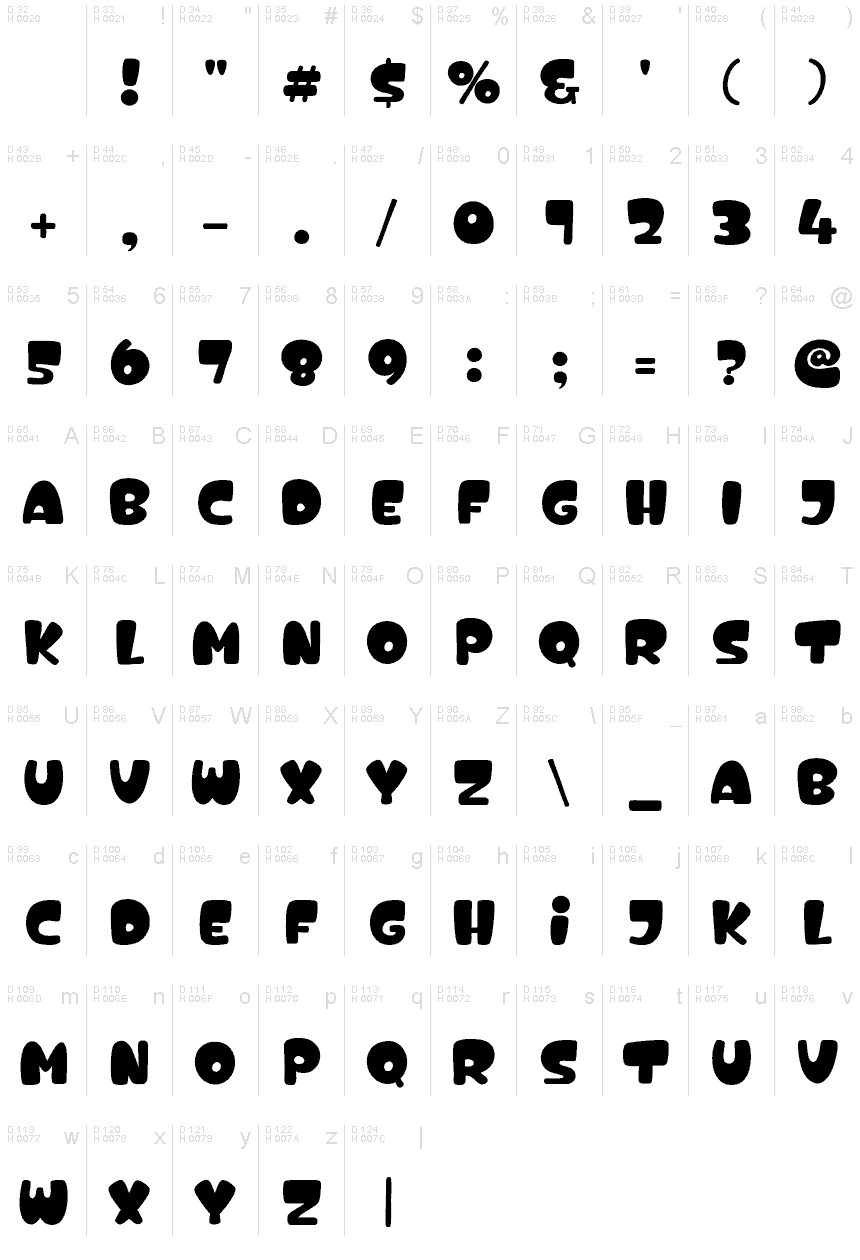
Love Roti
Love Roti font is a display bold typeface with a cartoon style and peaceful mood. Khurasan decided to fill the characters with rounded and retro-inspired strokes that form a bubbly playful composition. The thickness of each glyph alongside the cheerful feel make Love Roti extremely suitable for large-size headings in both print and digital presentation.
Use this free font in designing video graphics, blogging, posters titles, or headlines for publications targeting kids, youth, or families. It would also work nicely in packaging designs of bakery products or anything sweet such as honey and jelly products.